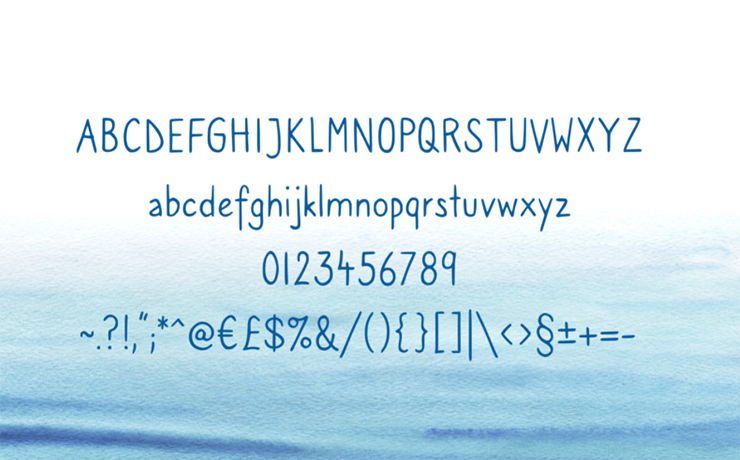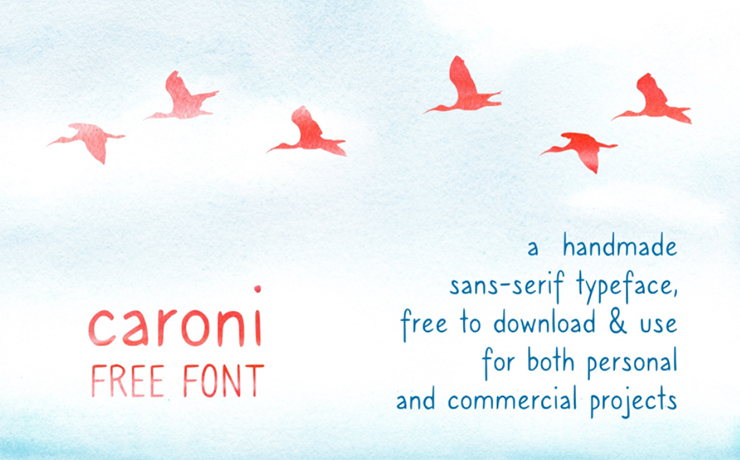
Caroni Font is a pretty handmade typeface. It has a subtle dip pen texture that can give your design a personal touch while making it perfect for any project that requires a handwritten feel.
This simple and clean look typeface was designed by Franzi Paetzold and published by Franzi draws in 2018.
The whole structure is handmade with the designer being unique with improper baselines. Thus, this cute typeface has a different texture that helps to create a unique design.
That way, you can definitely use it for smaller or large texts as well. And best of all, it can be paired with display fonts. Another awesome aspect is, that you will also use it with other handmade fonts.
This typeface has a unique shape with many large glyphs including upper and lower case letters.
You can use this great font for a variety of works such as business cards, logo designing, poster making, wedding or invitation cards, official cards, movie titles, stationery, signatures, and many other related purposes.
As a great pack, this comic font comes in 18 unique styles along with Open Type features. And it consists of highly legible characters, amazing swashes, and awesome readability.